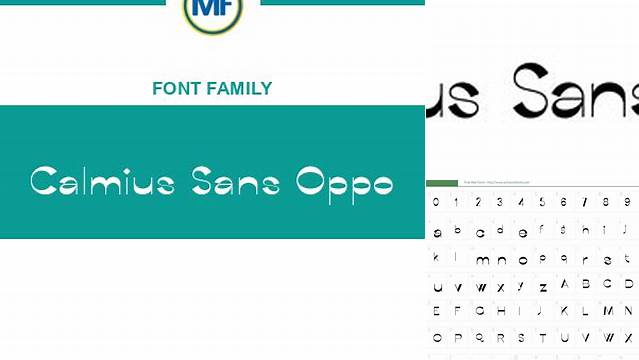
Hey guys! If you're an Oppo user and you're looking to spice up your phone's look, you're in the right place. We're diving into the world of fonts, specifically the Calmius Sans font, and how you can snag it for your Oppo device absolutely free. No hidden fees, no strings attached – just pure font goodness! So, buckle up and let's get started on this exciting journey to revamp your Oppo's visual experience. This article is your one-stop guide to understanding Calmius Sans, why it's awesome, and how to get the calmius sans oppo font free download without any hassle. We'll cover everything from the font's features to the simple steps you need to follow to install it on your device. Get ready to transform your phone's interface and make it uniquely yours! Let's get into it!
Calmius Sans Font: A Closer Look
First things first, what exactly is Calmius Sans? Well, my friends, it's a modern, clean, and highly readable typeface. It's designed with simplicity in mind, making it perfect for both display and body text. Imagine a font that's easy on the eyes, whether you're browsing the web, reading emails, or simply texting your buddies. That's Calmius Sans for you. It's the kind of font that adds a touch of elegance and sophistication without being overly flashy. The beauty of calmius sans lies in its versatility. It's not just a pretty face; it's a workhorse that performs exceptionally well in various contexts. Its clear and concise letterforms ensure that your text remains legible, even at smaller sizes. This is crucial for mobile devices where screen real estate is often limited. This makes it a fantastic choice for Oppo phones, as it enhances readability and overall user experience. The font’s design allows for a seamless integration across different applications and interfaces. From the sleek look of the icons to the text within apps, Calmius Sans can give your phone a unified and polished appearance. Moreover, this font is often praised for its neutrality. It doesn’t lean towards any specific style, making it suitable for a wide range of users with different preferences. Whether you're a fan of minimalist design or something a bit more expressive, Calmius Sans will adapt to your style. The character set typically includes a variety of weights and styles, which provide users with flexibility in how they want their text to appear. This includes light, regular, bold, and italic versions, allowing you to emphasize certain parts of your text or to give it a more dynamic feel. With each weight having its specific use, the font enhances the user’s ability to create a cohesive look and feel across all aspects of the device’s interface.
Design and Features of Calmius Sans
Let's dive deeper into the design and features that make Calmius Sans so appealing. The font's clean lines and balanced proportions are its most striking features. This design philosophy creates a harmonious visual experience. The designers have focused on creating a typeface that's both functional and aesthetically pleasing. This careful attention to detail ensures that the font looks great across various screen sizes and resolutions. One of the key features is its excellent readability. The designers meticulously crafted each letter to ensure that it’s easy to distinguish from others. The generous spacing and distinct letterforms further contribute to this enhanced readability. This is especially important on mobile devices where users might spend considerable time reading text. Calmius Sans also often comes with a wide range of character support. This includes not only the standard Latin alphabet but also various symbols, numbers, and special characters. This extensive character set ensures that you can use the font in multiple languages and across a diverse range of applications without any issues. The font’s versatility extends to the different weights and styles available. The variety of weights, such as light, regular, bold, and extra bold, gives you the ability to create visual hierarchy. With these various options, you can emphasize important text, create headings, and make your content visually engaging. The italic versions add a touch of elegance and sophistication to your text. They are perfect for creating a modern, stylish look on your Oppo device. The careful attention to detail in the design, coupled with the extensive features, is what makes calmius sans a great choice for Oppo users. This blend ensures that the font provides a premium user experience.
Calmius Sans vs. Other Fonts: A Comparison
When choosing a font for your Oppo, you've got tons of options, right? But how does Calmius Sans stack up against the competition? Let's pit it against some popular alternatives and see what makes it stand out. First up, let's compare it to the default Oppo font. Often, the default font is fine, but it's designed to be a one-size-fits-all solution. Calmius Sans offers a more refined, modern aesthetic. It's designed to be more readable and visually appealing, providing a noticeable upgrade. Next, consider fonts like Roboto or Open Sans, which are popular choices for their readability and versatility. While these are excellent fonts, Calmius Sans brings a unique character. Its clean lines and subtle nuances give it a distinct personality that sets it apart. The overall feel is often perceived as more polished and sophisticated, making it an attractive alternative for Oppo users. The comparison also extends to more stylistic fonts that might be used in certain interfaces. When considering the unique look of Calmius Sans, it's often preferred for its elegant and minimalist design. Compared to fonts with bolder or more decorative elements, Calmius Sans provides a clean and modern appearance. This simplicity makes it suitable for a wide range of applications and user preferences. The key differentiator lies in its balance of form and function. The legibility of Calmius Sans is a significant advantage. Its meticulously designed letterforms enhance readability. This is particularly crucial on mobile screens. The spacing and distinct character designs also enhance readability. This makes it an ideal choice for prolonged reading on a phone. Another important factor is the availability of weights and styles. Compared to fonts with fewer variations, Calmius Sans offers a wider range of options. This includes weights like light, regular, and bold, giving you the flexibility to create visual hierarchy in your content.